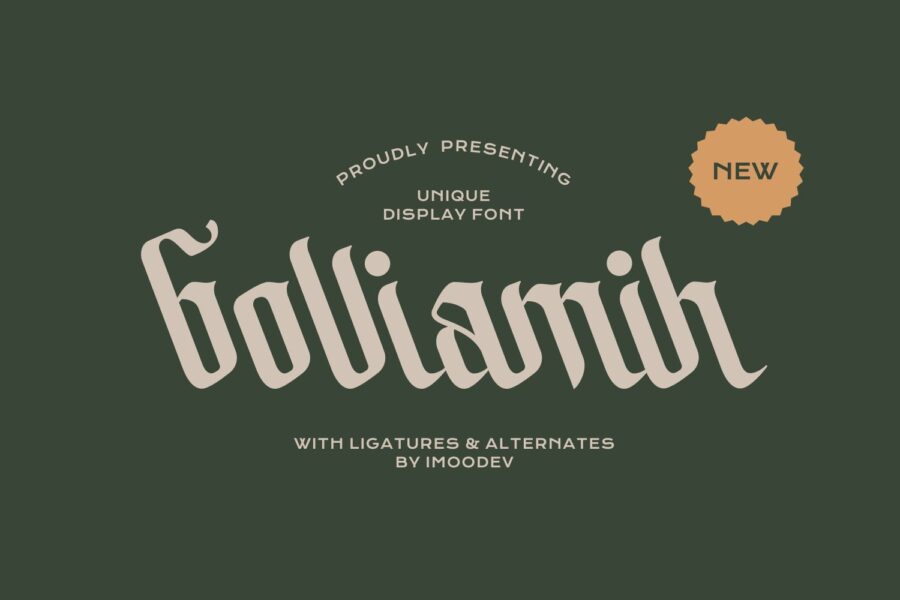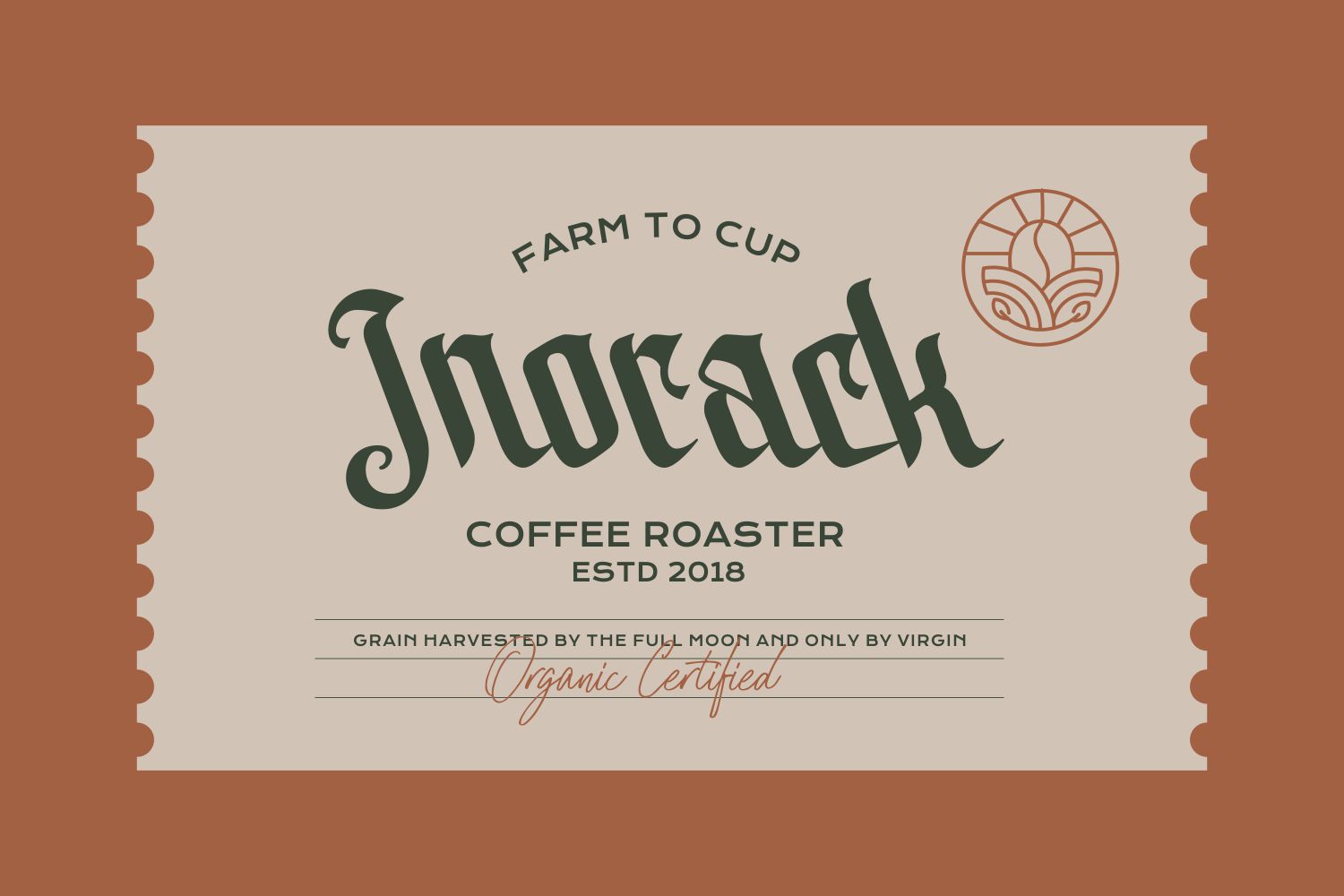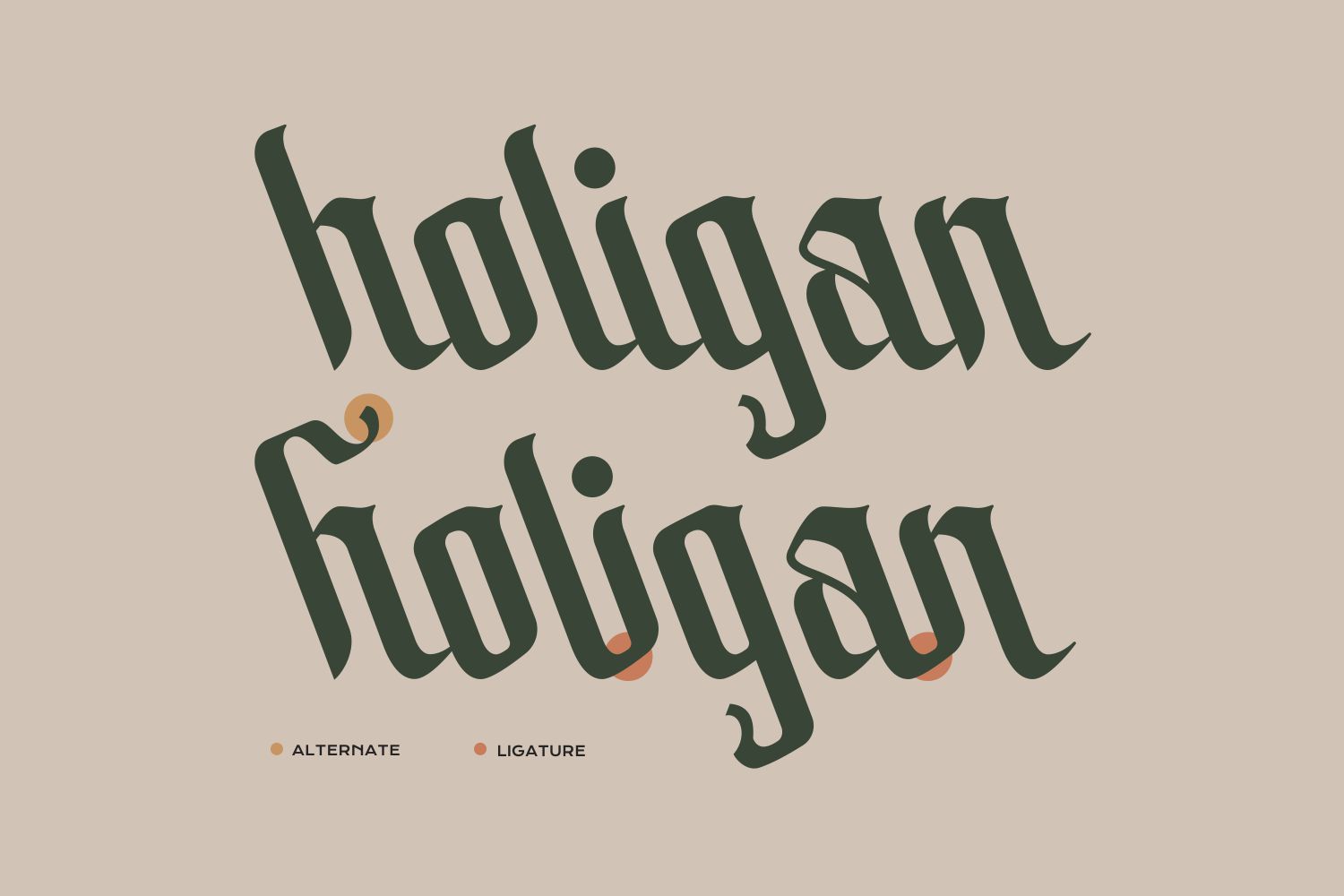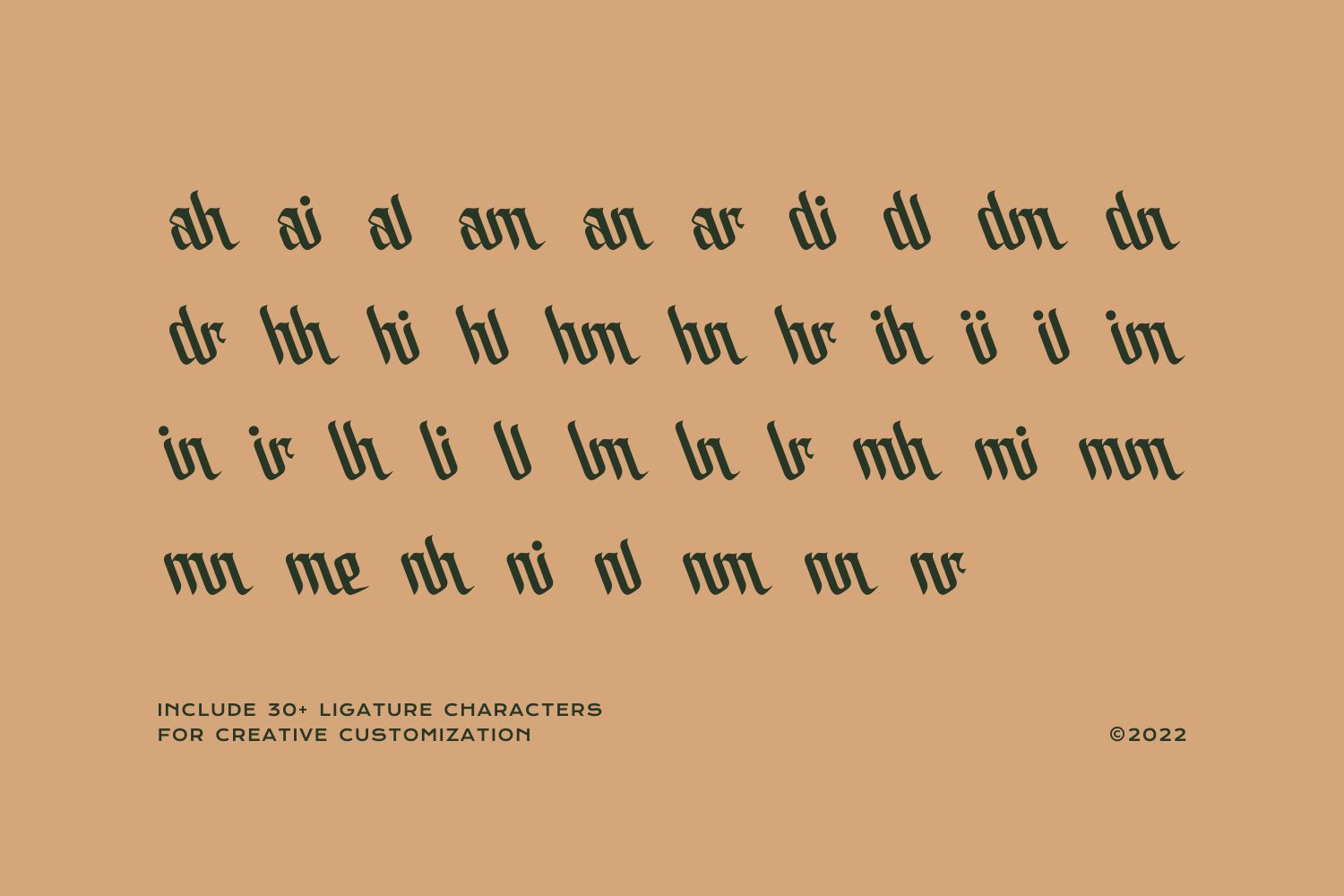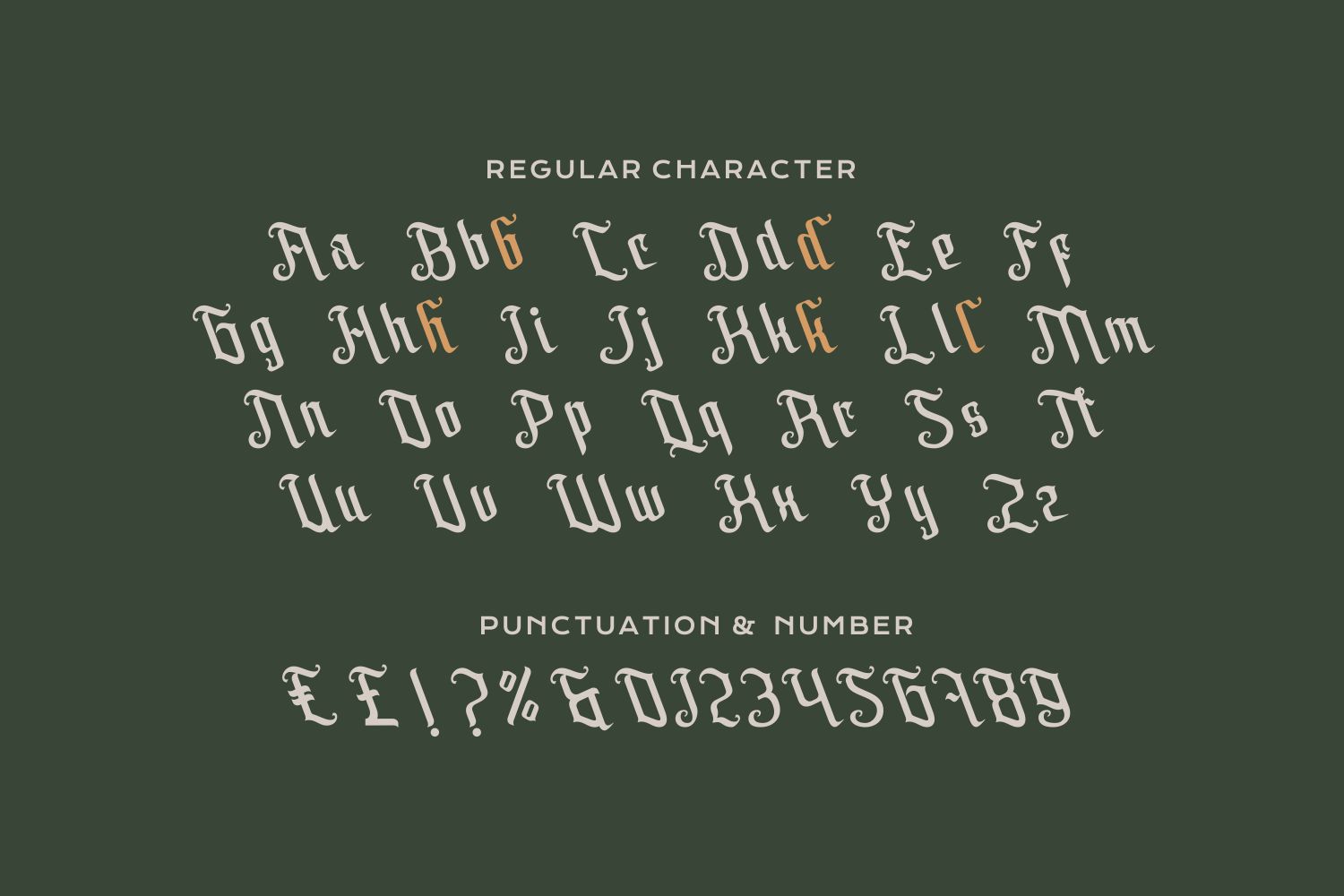
Bolliamih is a unique display font that blends Gothic-inspired elegance with a modern creative twist. Featuring sharp strokes, distinctive ligatures, and stylistic alternates, this font captures both strength and sophistication. Its bold yet refined letterforms make it ideal for branding, editorial designs, packaging, and standout headlines that require a touch of personality.
With over 30 ligature characters, Bolliamih provides endless customization options, giving designers flexibility to create expressive and original typography. Whether used for coffee branding, vintage-inspired projects, or contemporary logos, this font ensures your design commands attention with its artistic and authentic feel.
Bolliamih